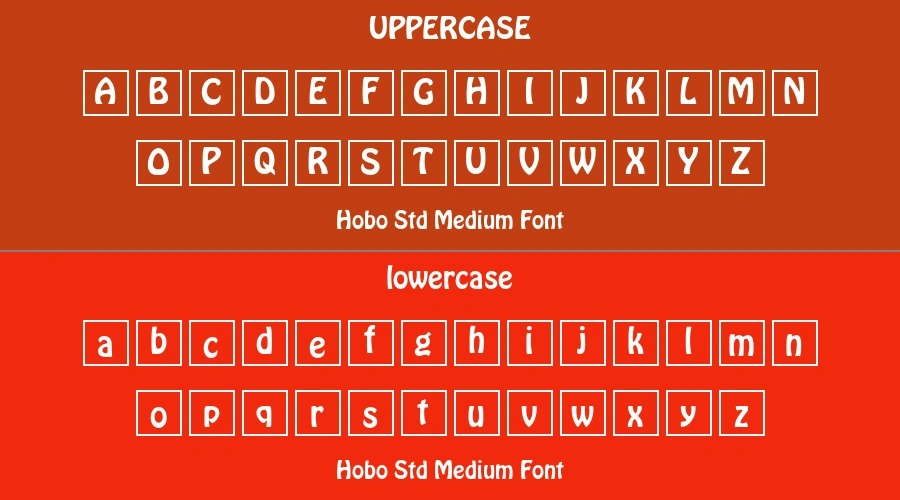
About Hobo Std Medium Font
When typographic excellence matters most, Hobo Std Medium Font delivers through its thoughtful blend of straight stems and typographic color. Specially crafted for corporate reports, it offers the versatility and cultural resonance required for sophisticated design work. Every detail serves a purpose.
The character set showcases thoughtful details like creative flair alongside functional decorative caps. This proves especially valuable in image captions, where output consistency directly influences results. Particular attention was paid to ear formation and generational relevance during development.